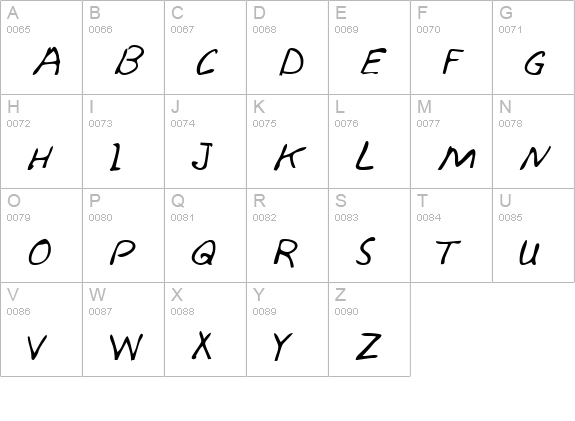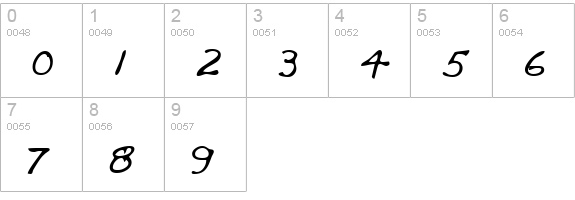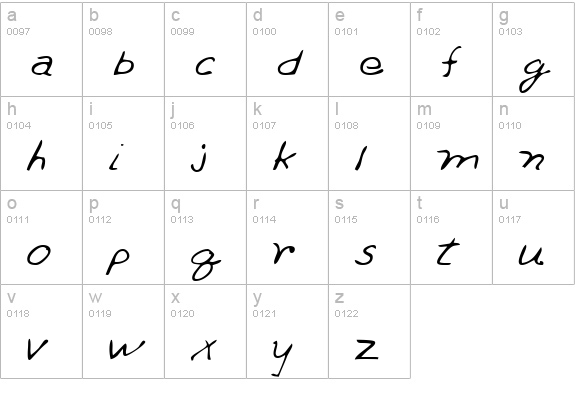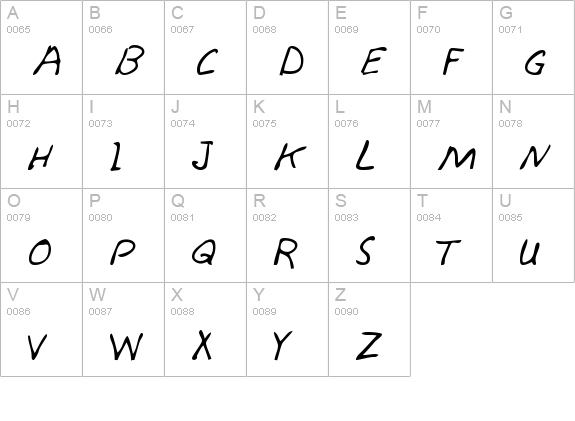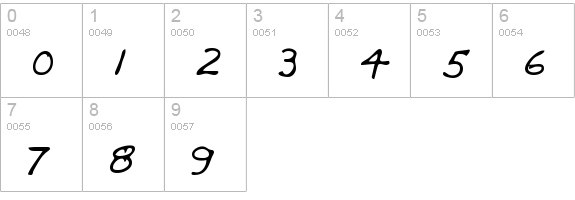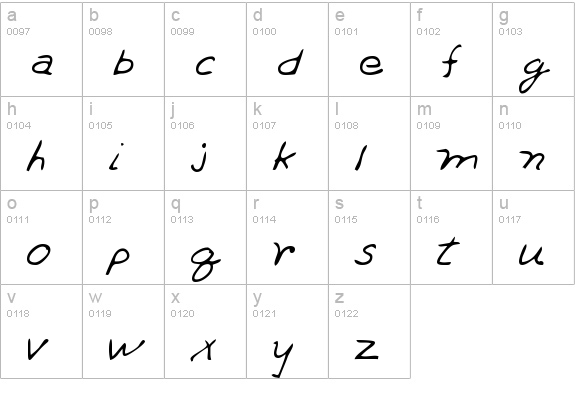
SkylersHand Regular Font Details
SkylersHand Regular is the standard, neutral variant in the SkylersHand typeface family \xE2\x80\x94 well suited to general body text, paragraphs, and standard typographic work.
SkylersHand Regular font is a beautifully crafted handwritten typeface that adds a touch of elegance and sophistication to any design project. Its flowing and organic letterforms exude a sense of warmth and friendliness, making it perfect for personal and creative endeavors. This font offers a unique blend of legibility and personality, making it suitable for a wide range of applications. Whether you're designing a wedding invitation, creating a logo, or crafting a social media post, SkylersHand Regular will bring a touch of charm and authenticity to your work. What sets SkylersHand Regular apart is not only its exceptional design but also the fact that it is available for free. Yes, you heard it right - this stunning font can be freely downloaded at FontsMarket.com. With just a few clicks, you can enhance your design projects with this delightful typeface without having to worry about any cost. Downloading SkylersHand Regular font is a breeze, and once you have it, the creative possibilities are endless. Its versatility allows it to be used in both digital and print mediums, ensuring that your designs will shine across various platforms. So, why wait? Unlock the potential of your design projects with SkylersHand Regular font, the freely available typeface that combines elegance, personality, and accessibility. Download it today at FontsMarket.com and let your creativity soar.